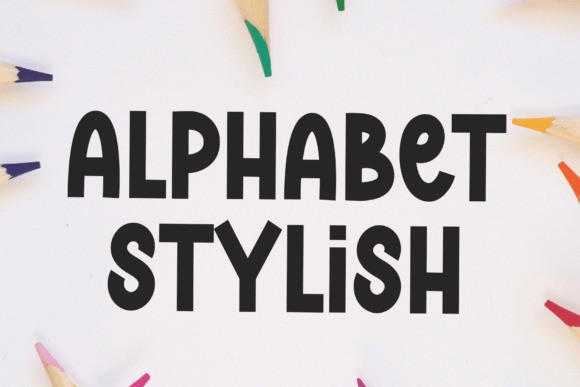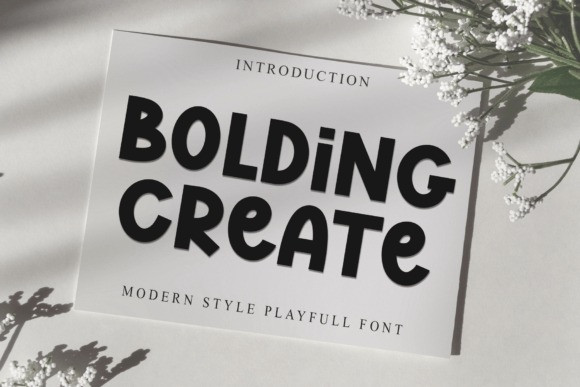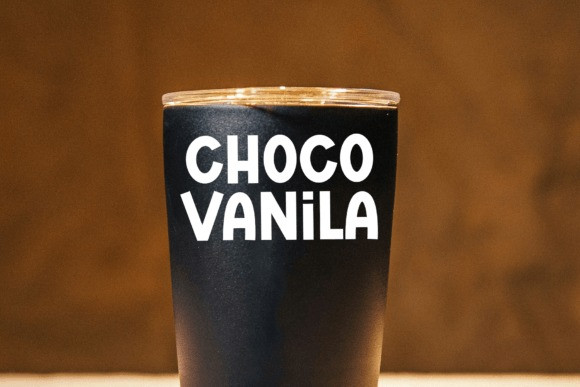
Bolding Create Font
Bolding Create Font is a bold and playful modern font designed to bring energy and creativity to your projects. With its fun and quirky letterforms, this typeface is perfect for posters, headlines, branding, and cheerful designs. Let Bolding Create add a touch of personality and boldness to your creations!